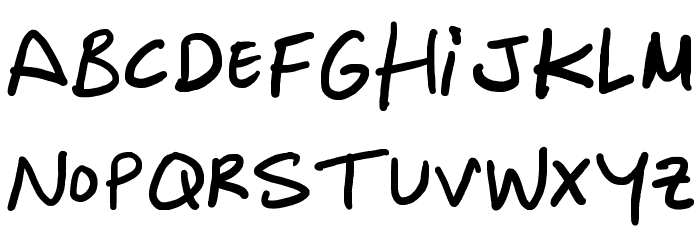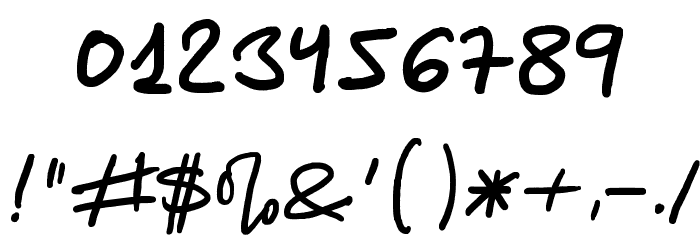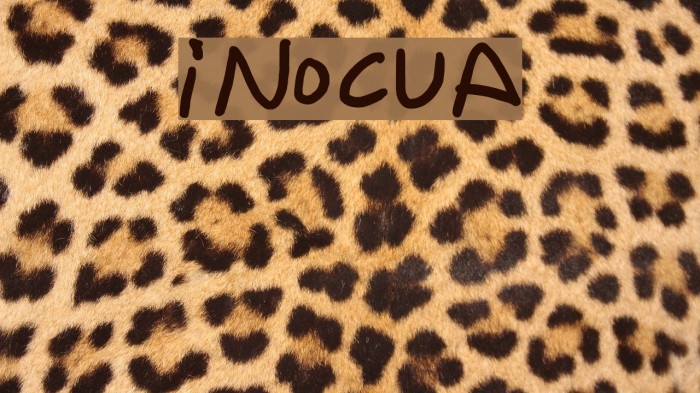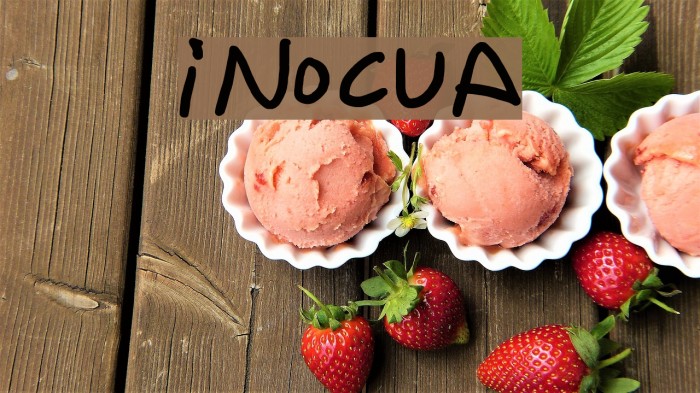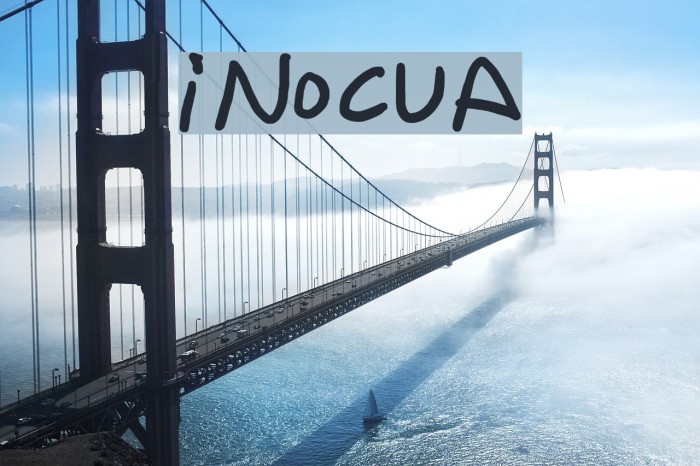
Inocua Font
This font exudes a playful and casual handwritten style, characterized by its smooth, flowing curves and slightly irregular letterforms. The strokes are consistent in thickness, providing a uniform appearance that enhances readability while maintaining a personal touch. The letters are slightly slanted, adding to the informal and relaxed vibe. This font is versatile, suitable for conveying warmth and approachability in various design contexts. The numerals and special characters maintain the same playful aesthetic, ensuring a cohesive look across all text elements.
A playful, casual handwritten font with smooth, flowing curves.
- Proposed Projects: Ideal for greeting cards, personal branding, casual invitations, and social media graphics.
- Overall Style: Casual
- Use Case: Logos, Headlines, Informal text